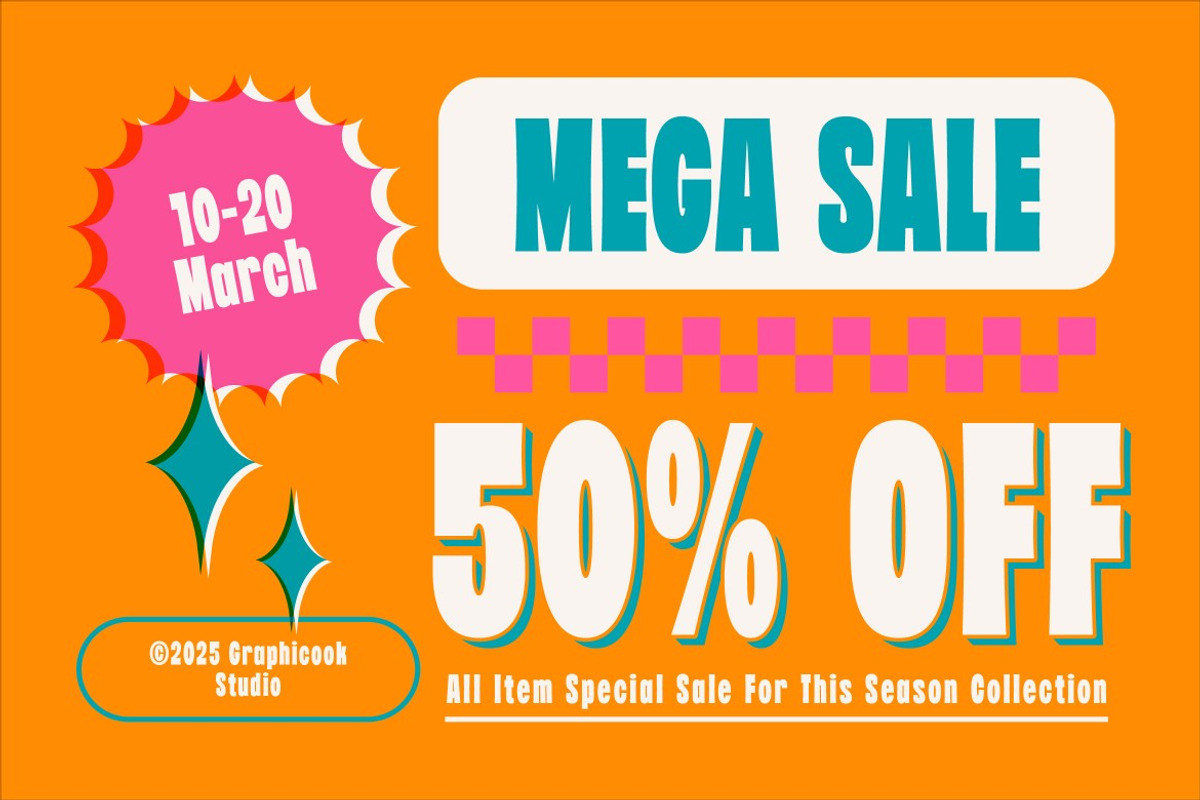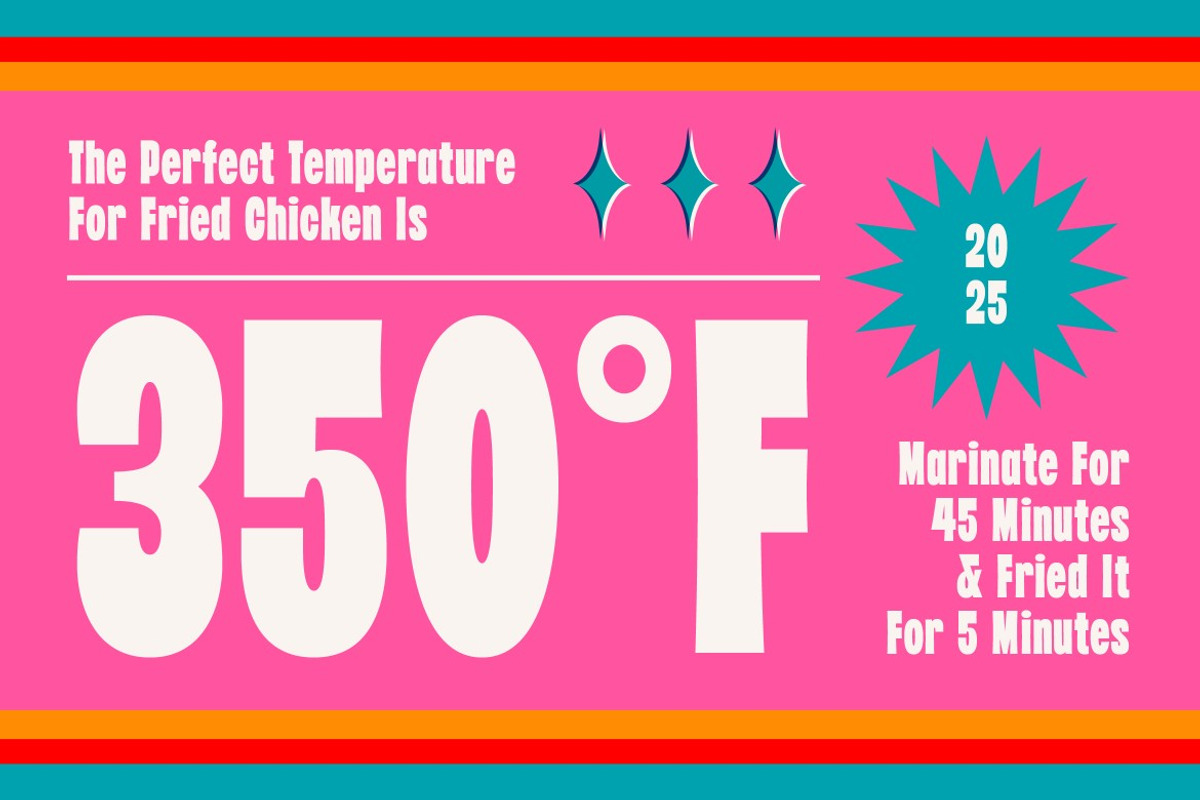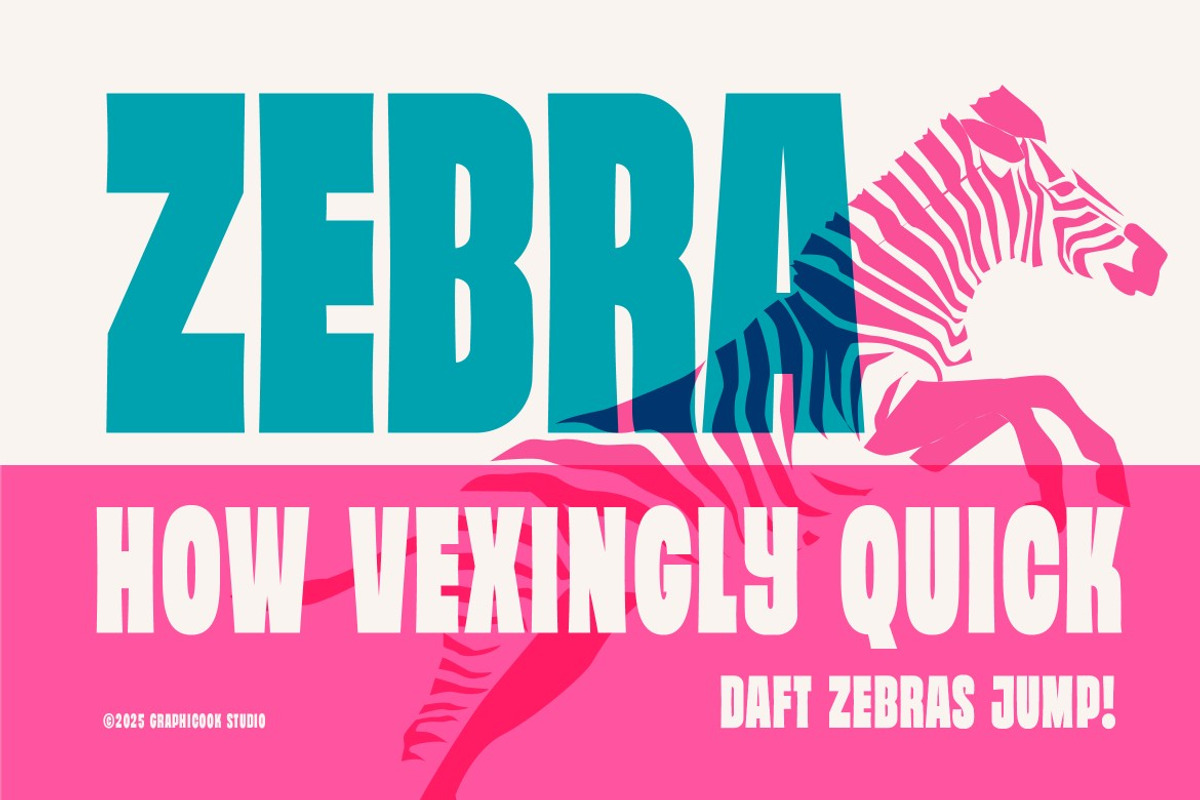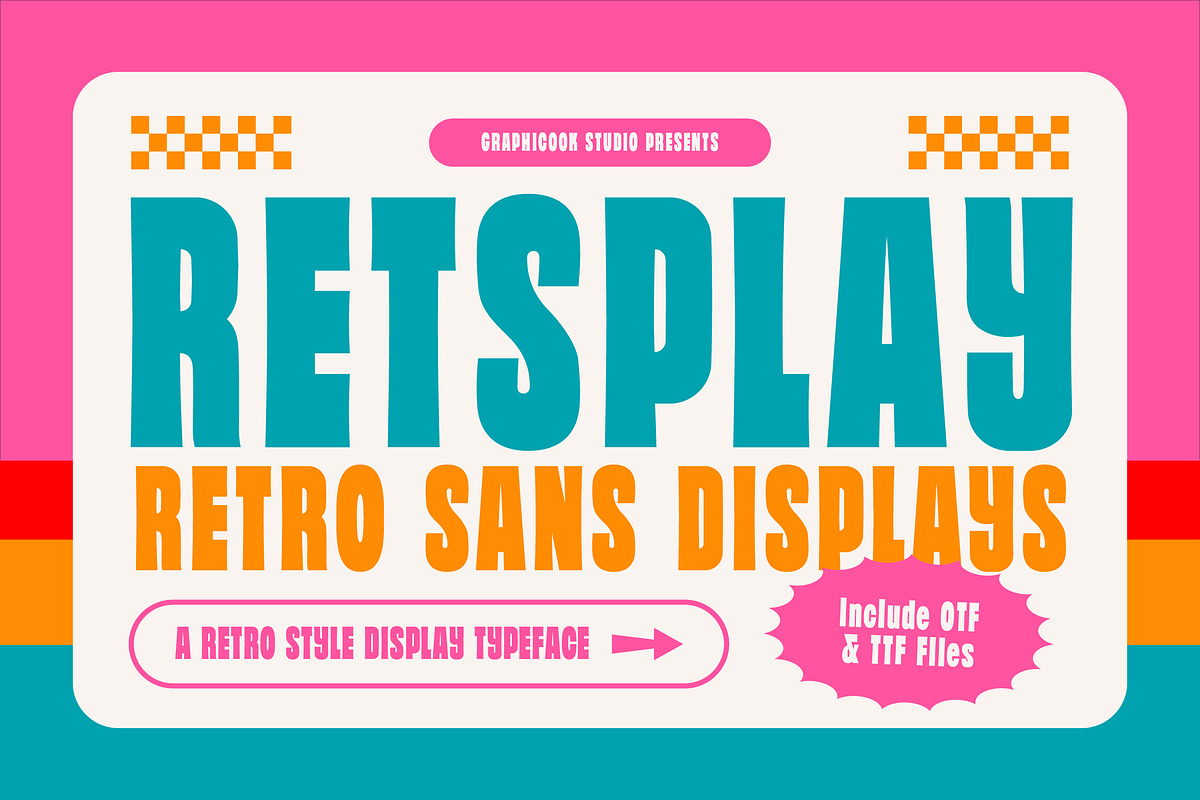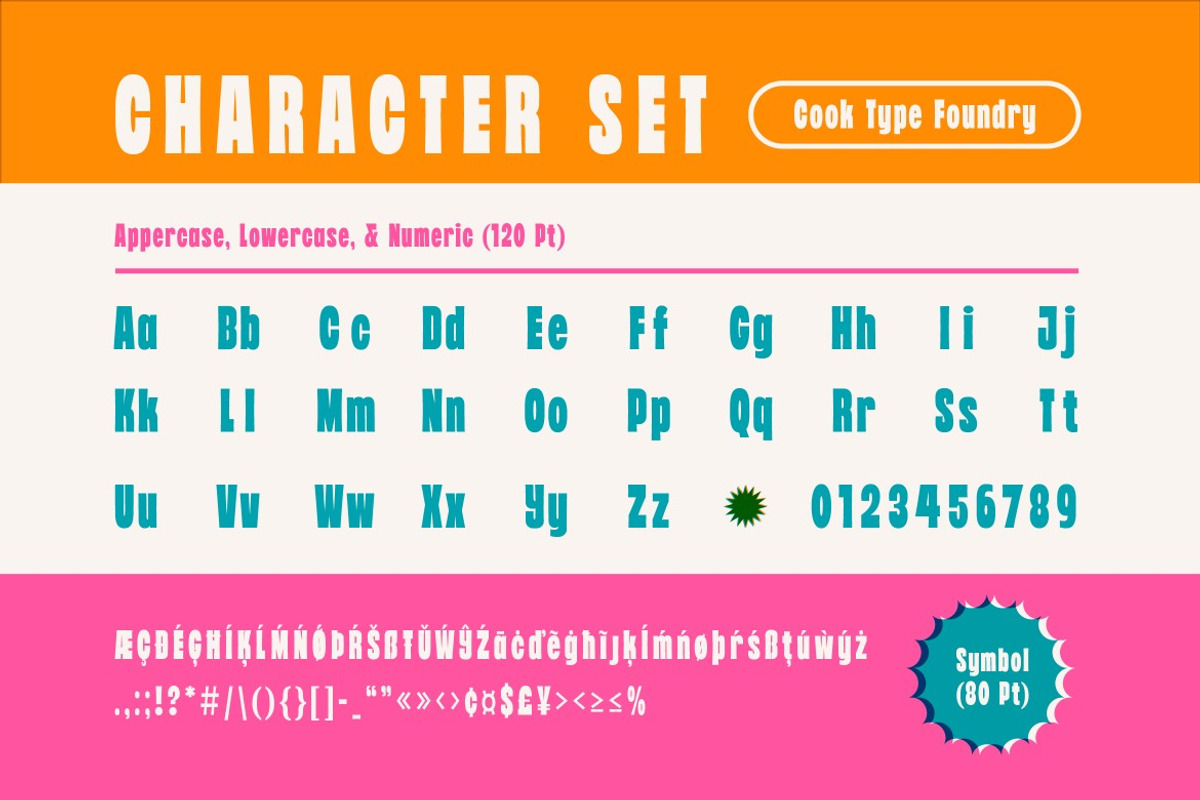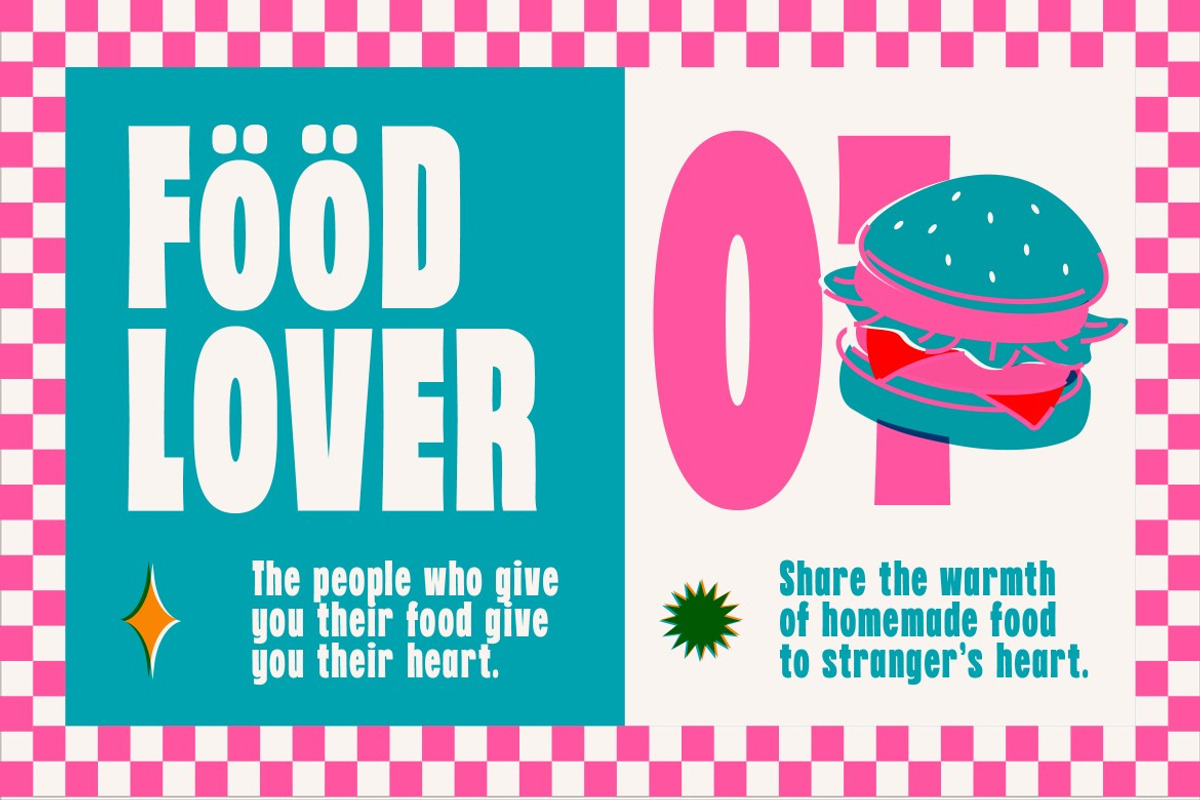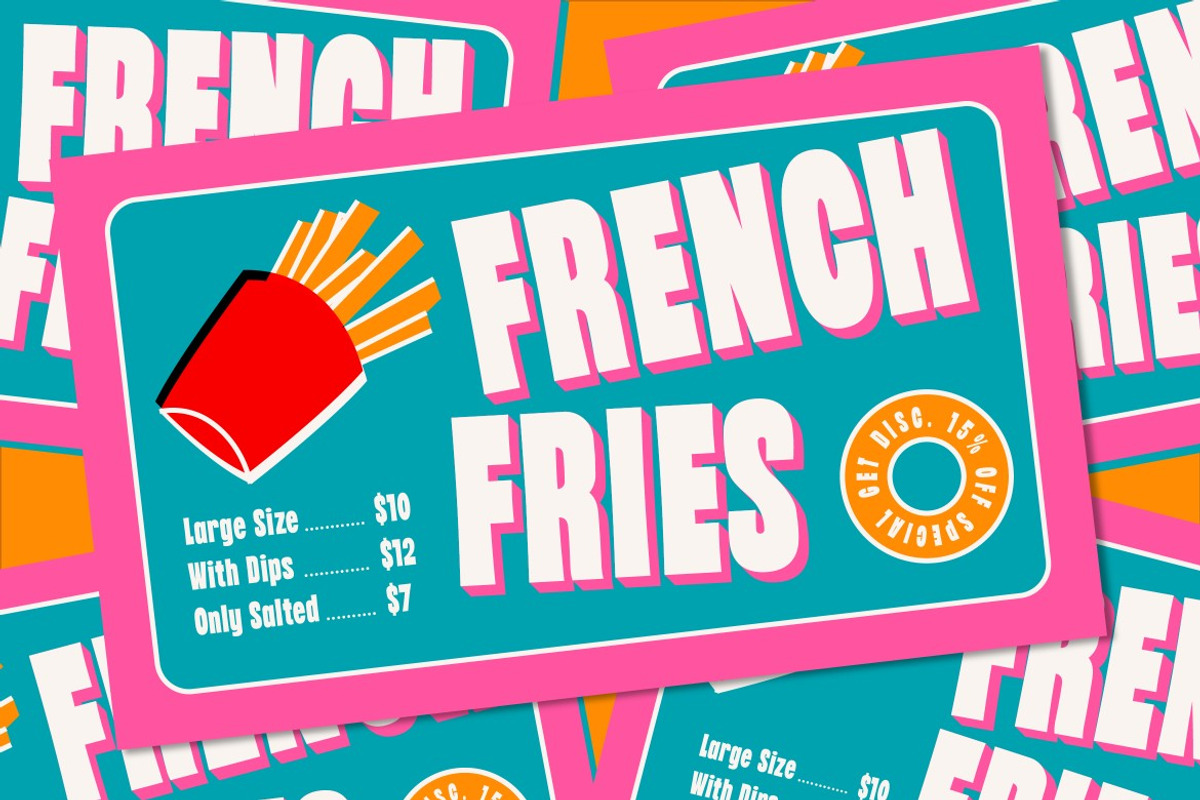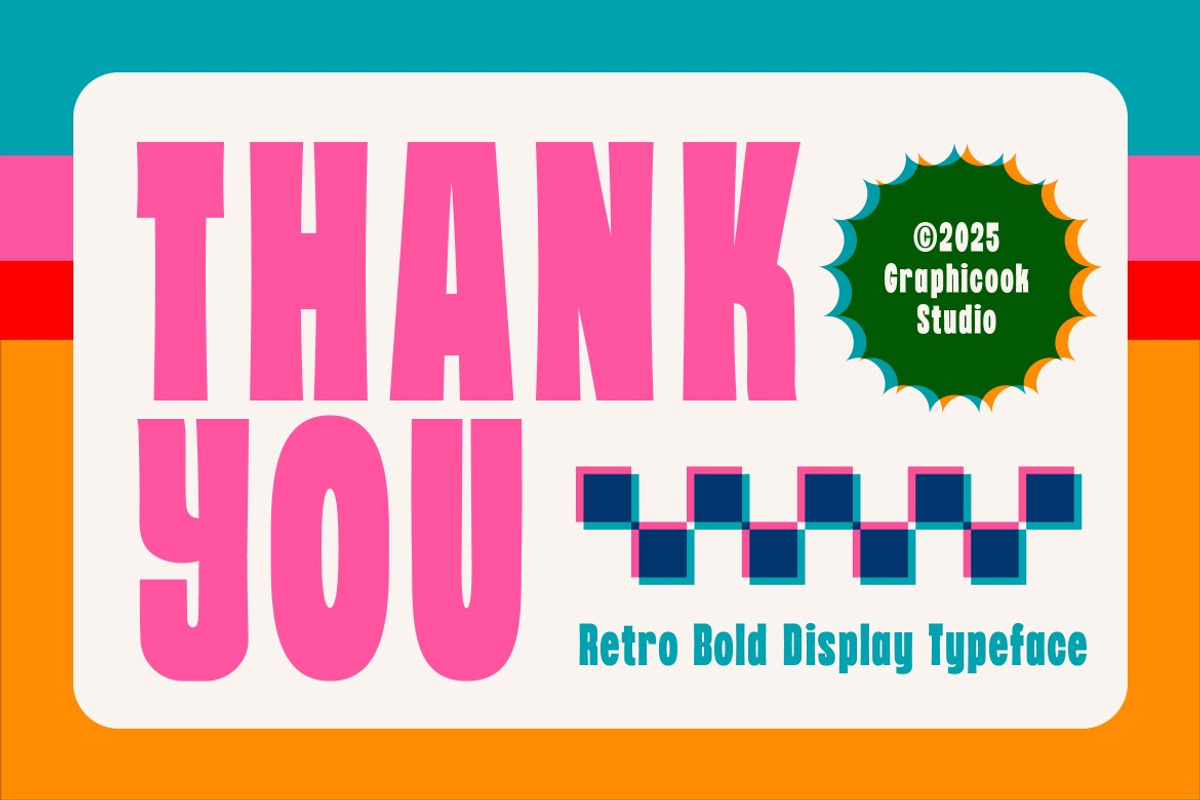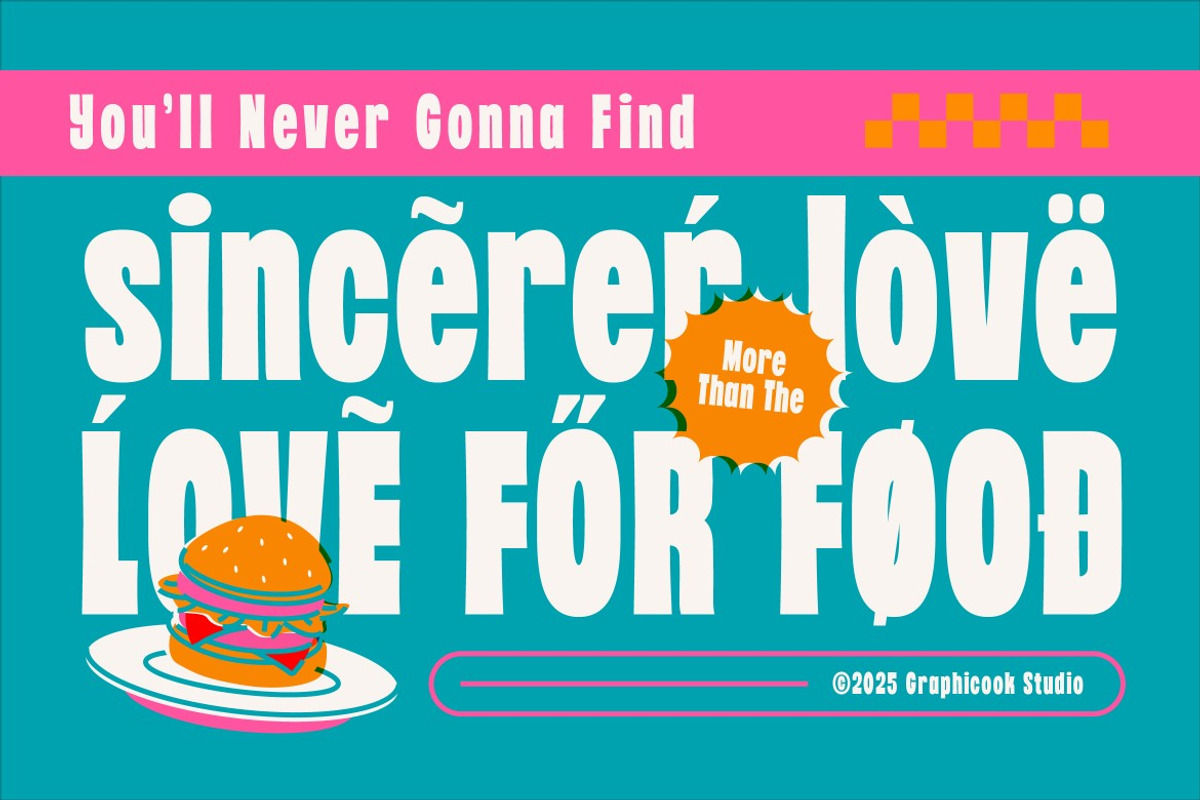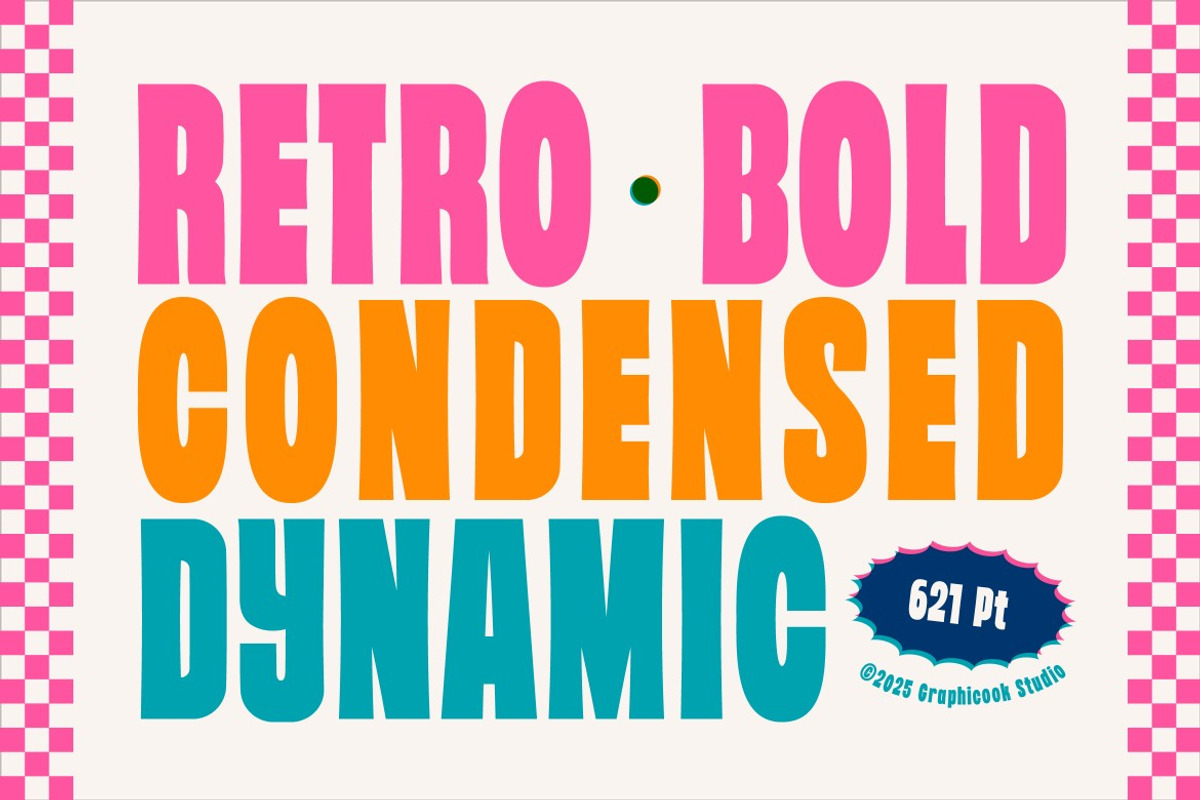
Retsplay
The Retsplay font is a bold and lively retro display typeface, inspired by the vibrant styles of the ’60s and ’70s. With its energetic and cheerful vibe, this font instantly grabs attention, making it perfect for retro-themed designs that aim to capture a sense of nostalgia and fun.